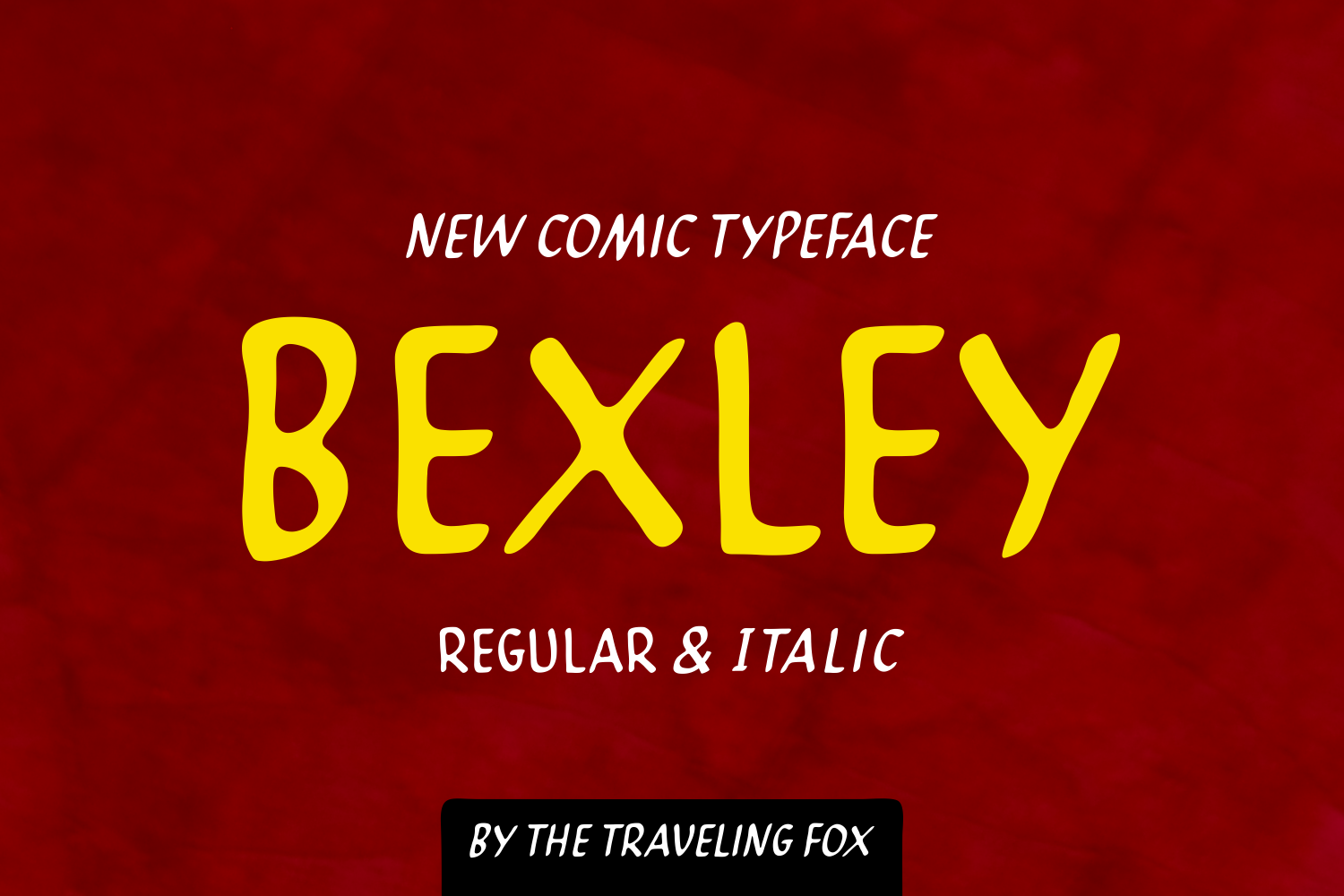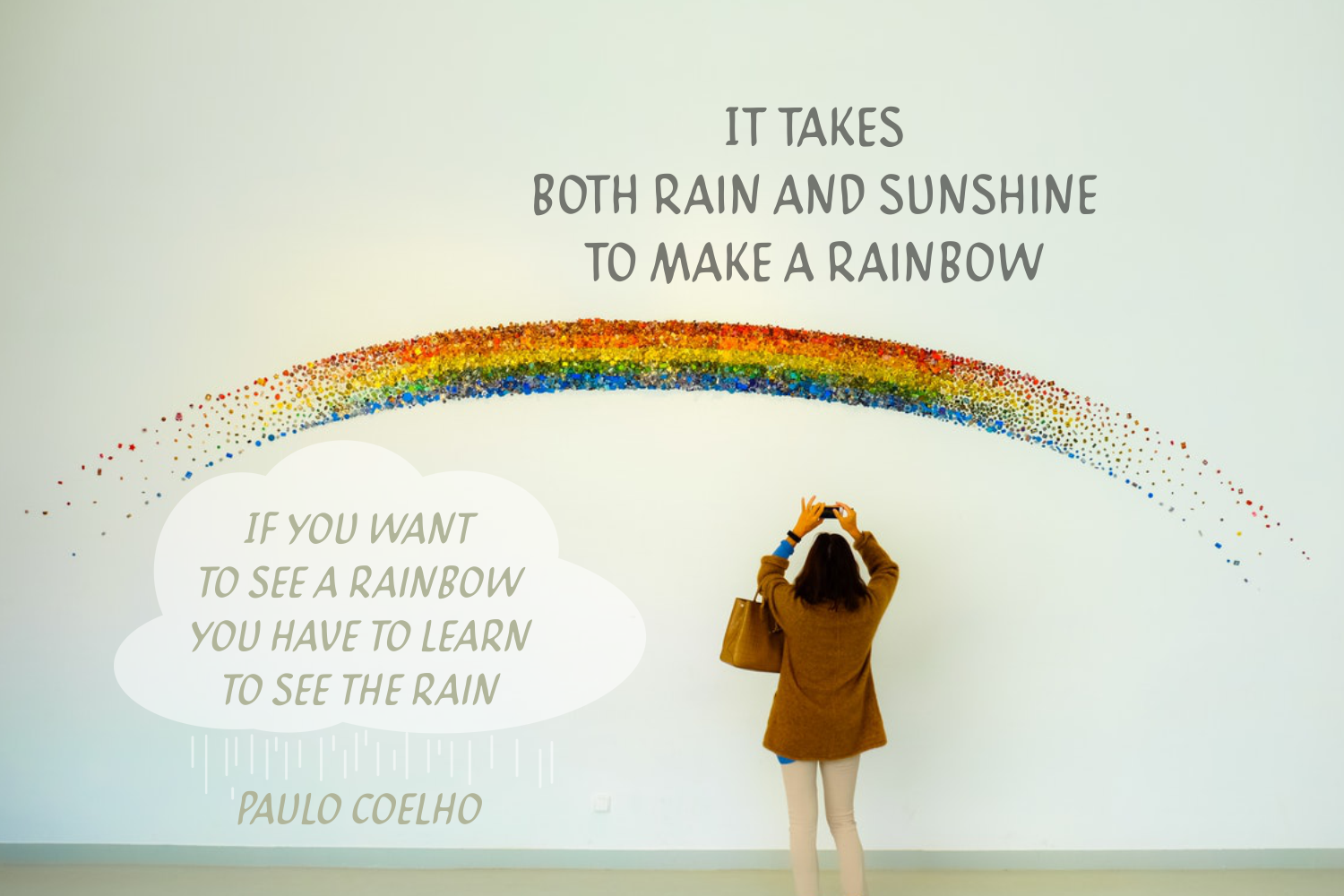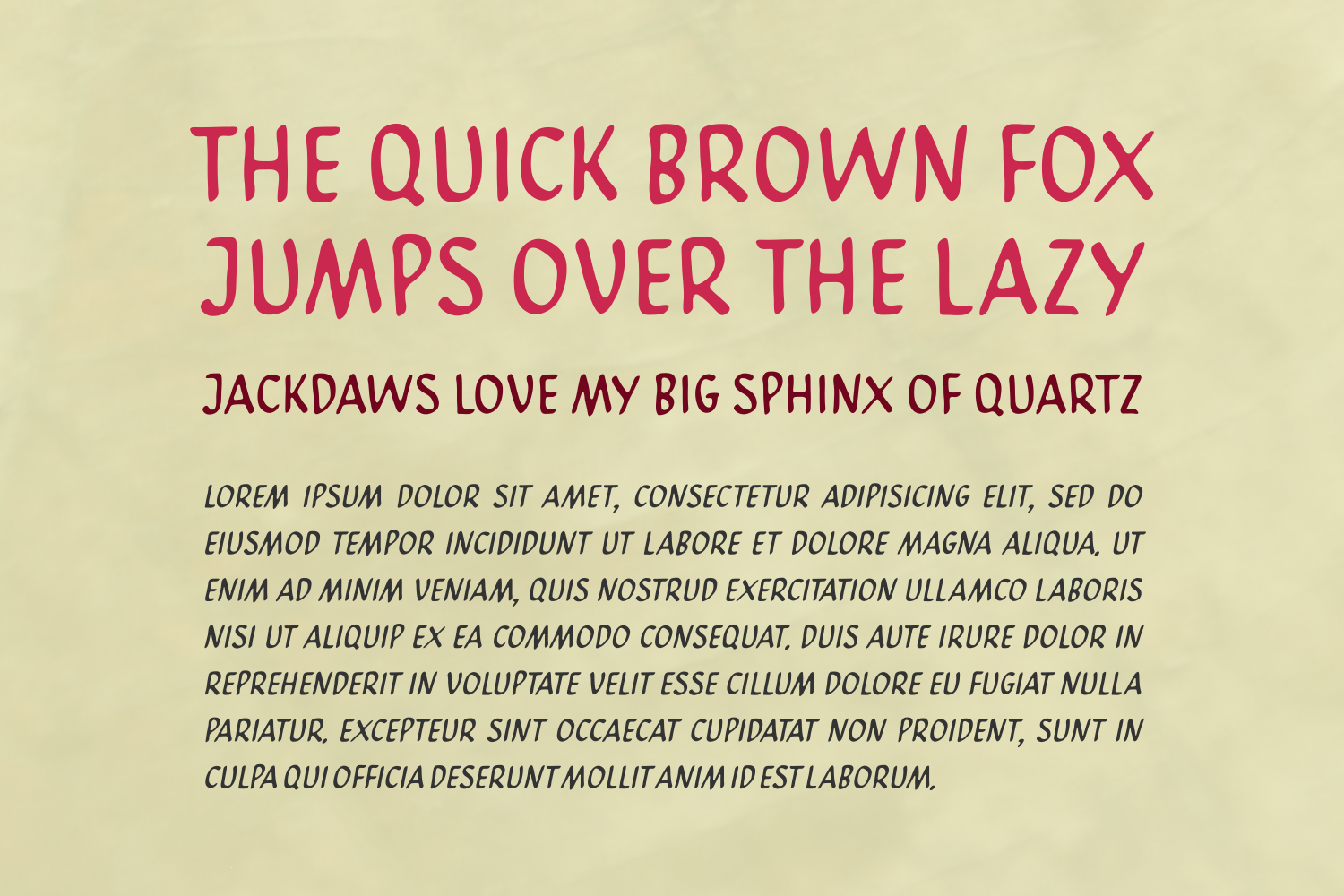
The Perfect Addition to Your Design Toolbox
As designers, we’ve all been there – staring at a blank page, trying to come up with the perfect font to bring our vision to life. The right font can make all the difference, and that’s exactly what the Bexley Font is designed to do. With its unique, freeform weighting, this warm and inviting comic typeface is perfect for a wide range of designs.
Whether you’re working on a fun children’s book, a casual blog, or a relaxed branding project, the Bexley Font is an excellent choice. Its adaptability and legibility make it a valuable addition to any designer’s toolbox. With its organic, earthy feel, this font is sure to bring a touch of personality to your designs.
Bexley Font Key Features
- Unique Characteristics: Bexley Font features a unique blend of modern and vintage elements, with elegant lines, subtle flourishes, and a distinctive aesthetic that sets it apart from other fonts.
- Font Style: Bexley Font is available in multiple font styles, including Regular, Italic, Bold, and Bold Italic, offering flexibility and versatility in design applications.
Bexley Font Review
As a designer, I’ve had the chance to work with the Bexley Font, and I must say, it’s a solid addition to any font library. ✨ Here are a few things that stand out to me:
- Unique character set: Bexley Font offers a distinctive character set that’s both elegant and versatile. I’ve found it particularly useful for creating headers and titles.
- Good legibility: The font’s legibility is one of its strongest points. It’s easy to read, even at smaller font sizes, making it a great choice for body text.
- Stylish: Let’s face it – Bexley Font is a stylish font. It’s perfect for adding a touch of sophistication to your designs.
Of course, no font is perfect, and Bexley Font has its limitations. ⚠️ Here are a few things to keep in mind:
- Not suitable for large blocks of text: While the font is legible, it’s not ideal for large blocks of text. It can start to feel cluttered and overwhelming.
- Limited language support: Bexley Font may not be the best choice for designs that require extensive language support.
Overall, I’m a fan of the Bexley Font. It’s a great choice for designers who want to add a touch of elegance and sophistication to their work. While it may have some limitations, it’s a solid addition to any font library.
Tip: To get the most out of Bexley Font in Canva, use it for titles and headings to add a touch of elegance to your designs.
Tip: Use Bexley Font in combination with bold lines and geometric shapes to create a modern and sophisticated look.
Tip: Use Bexley Font in combination with bold colors and graphics to create a visually appealing presentation.
Bexley Font is ideal for:
- Restaurant menus and signage
- Event branding and marketing materials